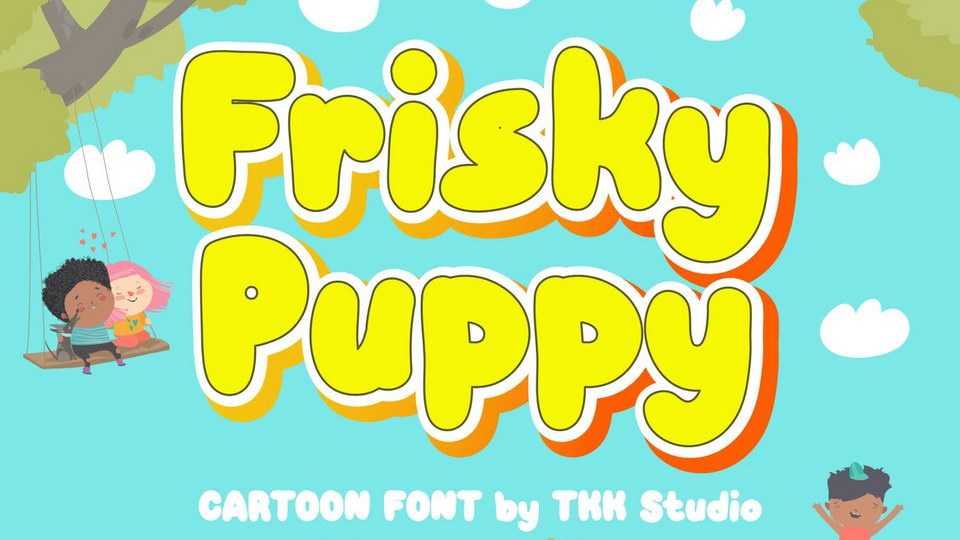
Download Frisky Puppy font, a happy and fun cartoon typeface. It creates happiness and will put a smile in every word written. Suits perfectly for your doodle illustration font, scribble book, children related projects, t-shirt for kids writing,